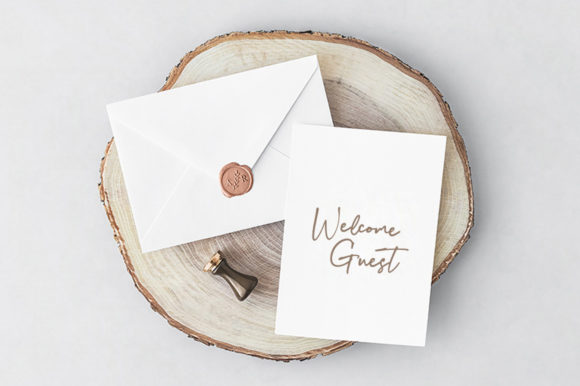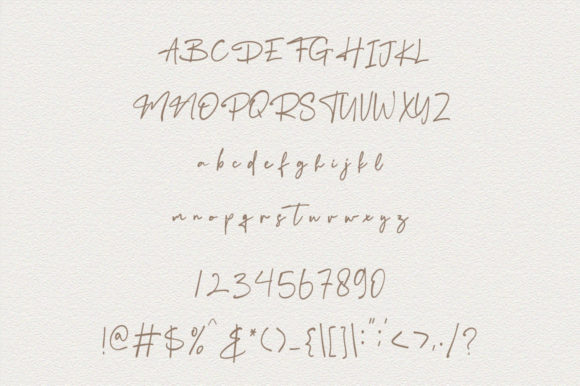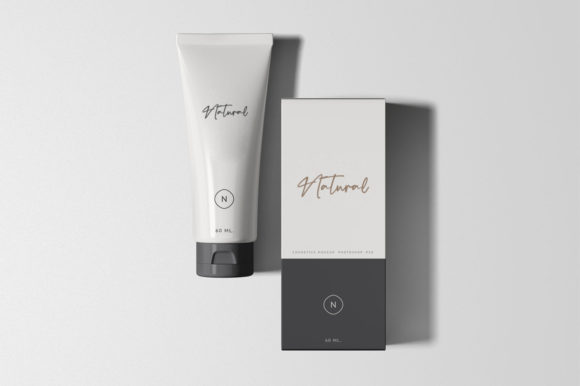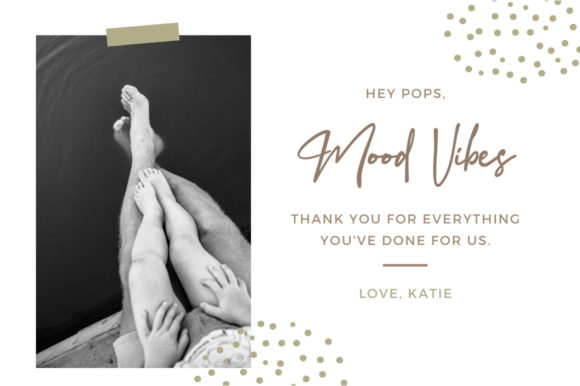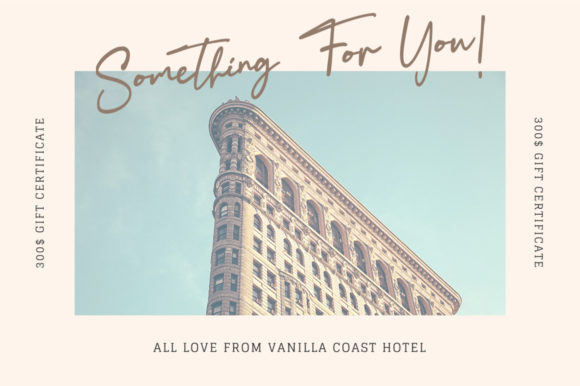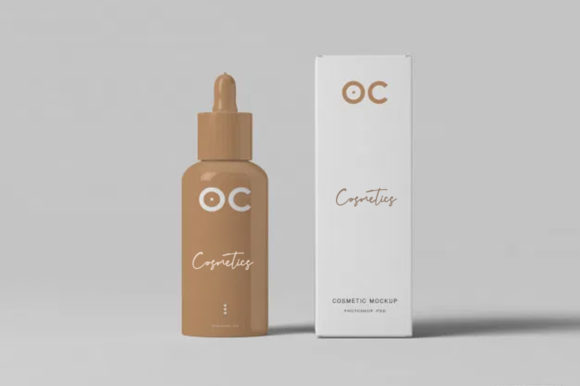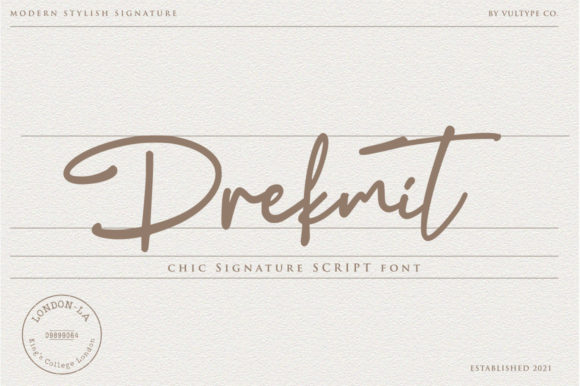
Drekmit Font: Elevate Your Designs with Elegance and Sophistication
In the world of typography, fonts play a crucial role in conveying the tone and personality of a design. For designers and crafters seeking to add a touch of elegance and sophistication to their projects, Drekmit Font is an exceptional choice. This stylish and incredibly elegant script font is perfect for a variety of applications, from wedding invitations and thank you cards to quotes, greeting cards, logos, business cards, and more.
The Charm of Drekmit Font
Drekmit Font boasts a unique and captivating charm that sets it apart from other script fonts. Its elegant strokes and beautiful letterforms evoke a sense of luxury and refinement, making it an ideal choice for designs that require a high level of sophistication. Whether you’re working on a wedding invitation, a branding project, or a simple greeting card, Drekmit Font is sure to impress.
One of the standout features of Drekmit Font is its versatility. This font can be used in a wide range of design applications, including:
- Wedding invitations and stationery: Add a touch of romance and elegance to your wedding designs with Drekmit Font.
- Thank you cards and gift tags: Express your gratitude in style with this beautiful script font.
- Quotes and posters: Use Drekmit Font to create inspiring and visually appealing quotes and posters.
- Greeting cards and postcards: Add a personal touch to your greeting cards and postcards with this elegant font.
- Logos and branding: Create a lasting impression with Drekmit Font, perfect for logos, business cards, and other branding materials.
Why Choose Drekmit Font?
So, what makes Drekmit Font a top choice among designers and crafters? Here are just a few reasons:
- Elegant and sophisticated: Drekmit Font exudes elegance and sophistication, making it perfect for designs that require a high level of refinement.
- Easy to read: Despite its elegant strokes, Drekmit Font is easy to read, even in smaller sizes.
- Highly versatile: Use Drekmit Font in a variety of design applications, from wedding invitations to logos and branding materials.
- Unique and captivating: Drekmit Font has a unique charm that sets it apart from other script fonts.
Tips for Using Drekmit Font
Drekmit Font is a stylish and incredibly elegant script font that is sure to elevate your designs to the next level. With its unique charm, versatility, and ease of use, it’s an excellent choice for designers and crafters seeking to add a touch of sophistication and elegance to their projects. Whether you’re working on a wedding invitation, a branding project, or a simple greeting card, Drekmit Font is an exceptional choice that is sure to impress.